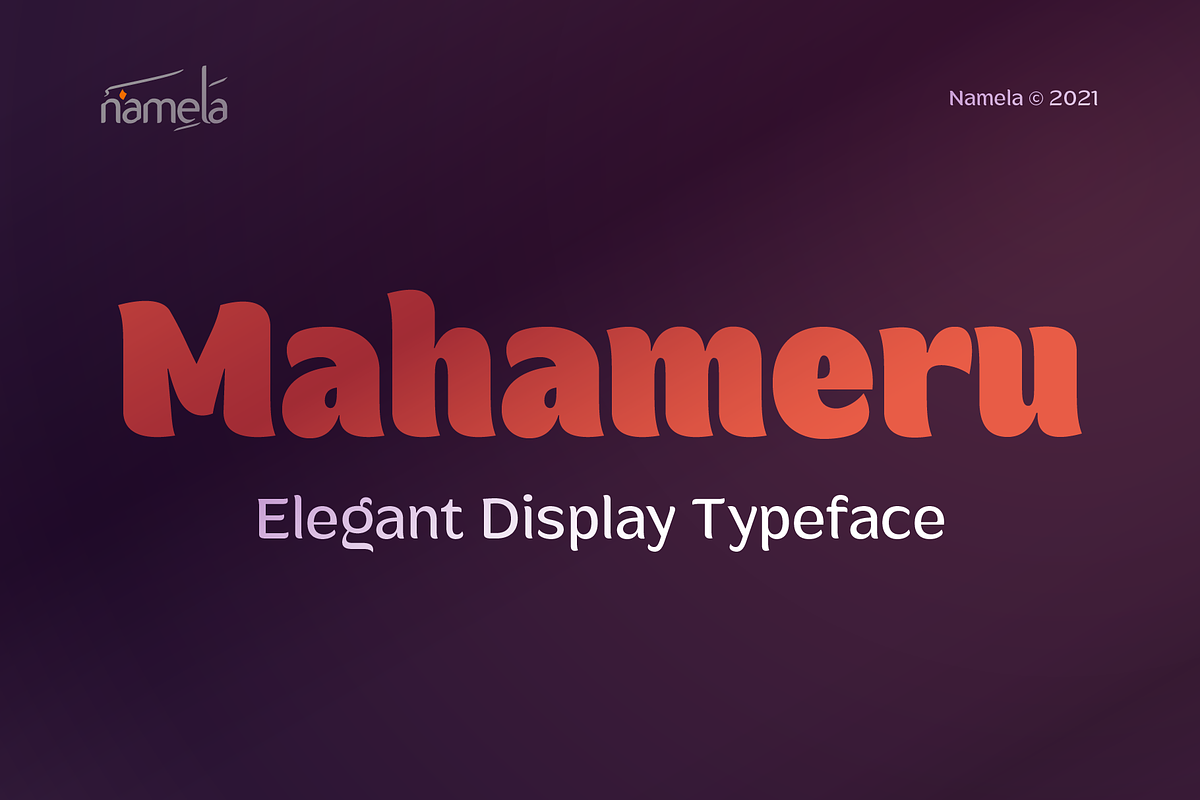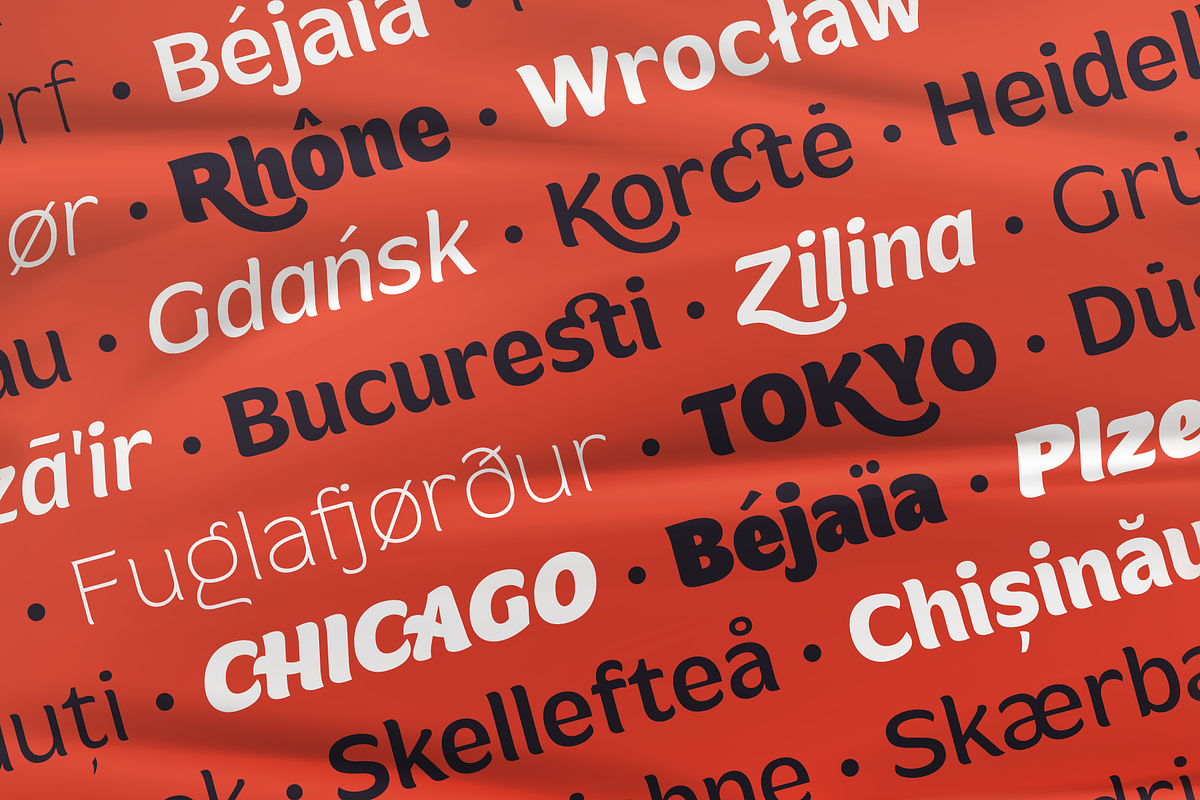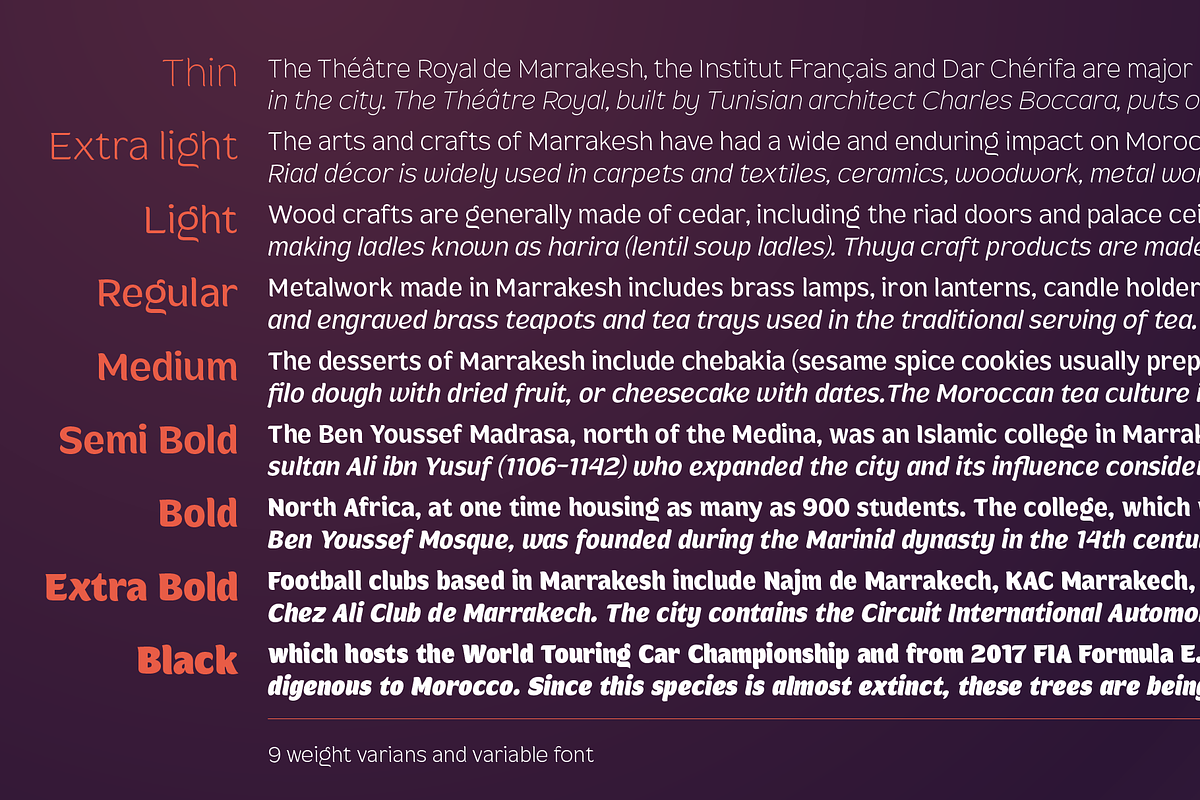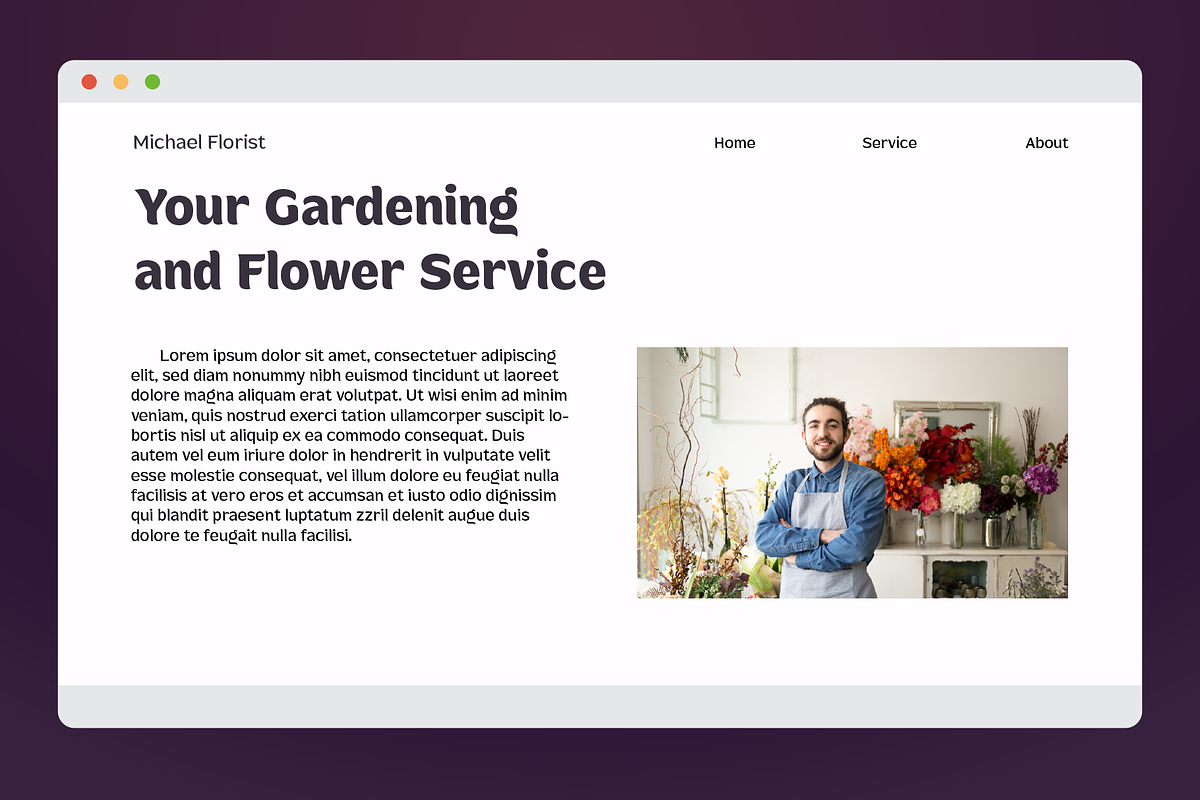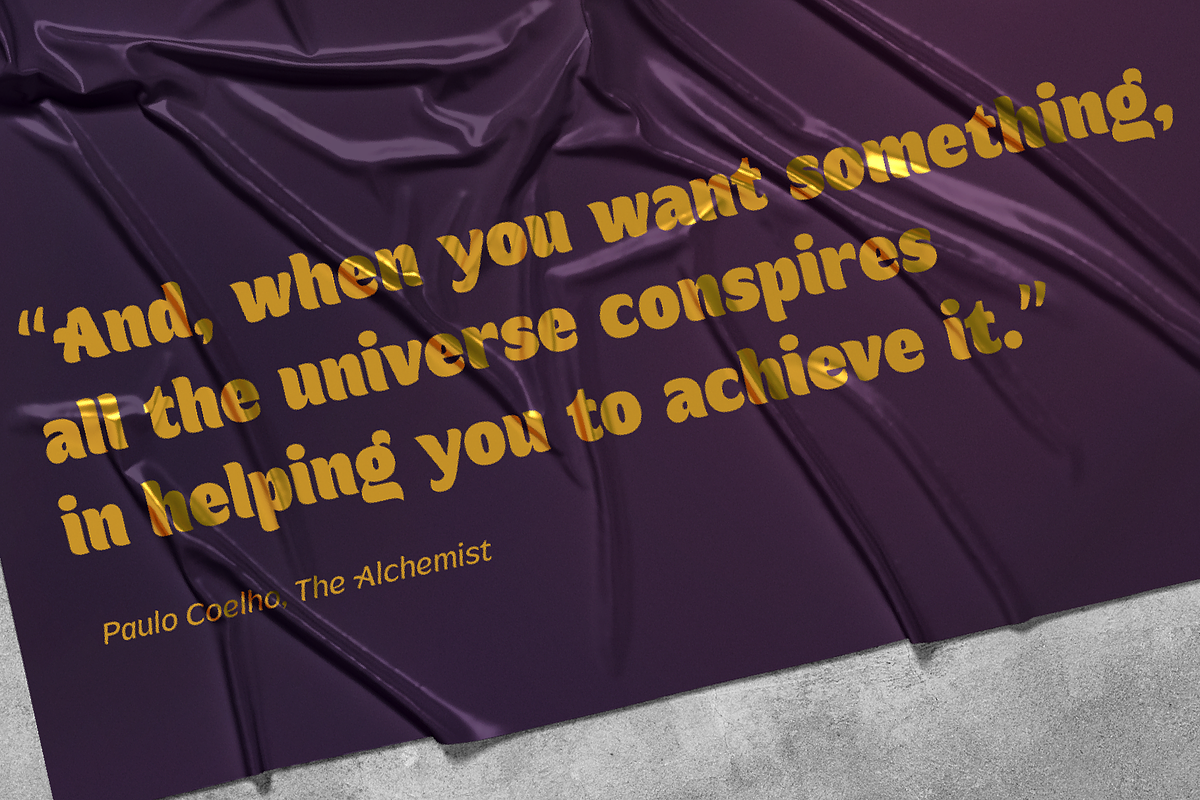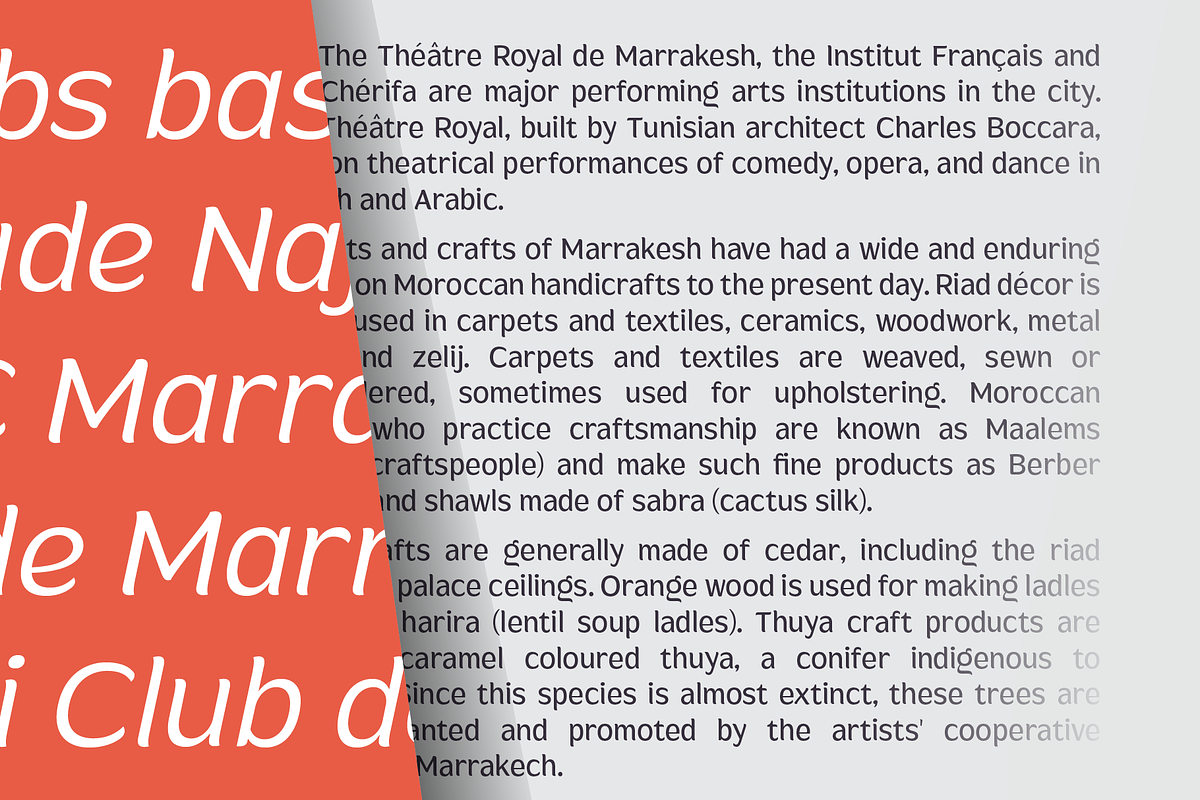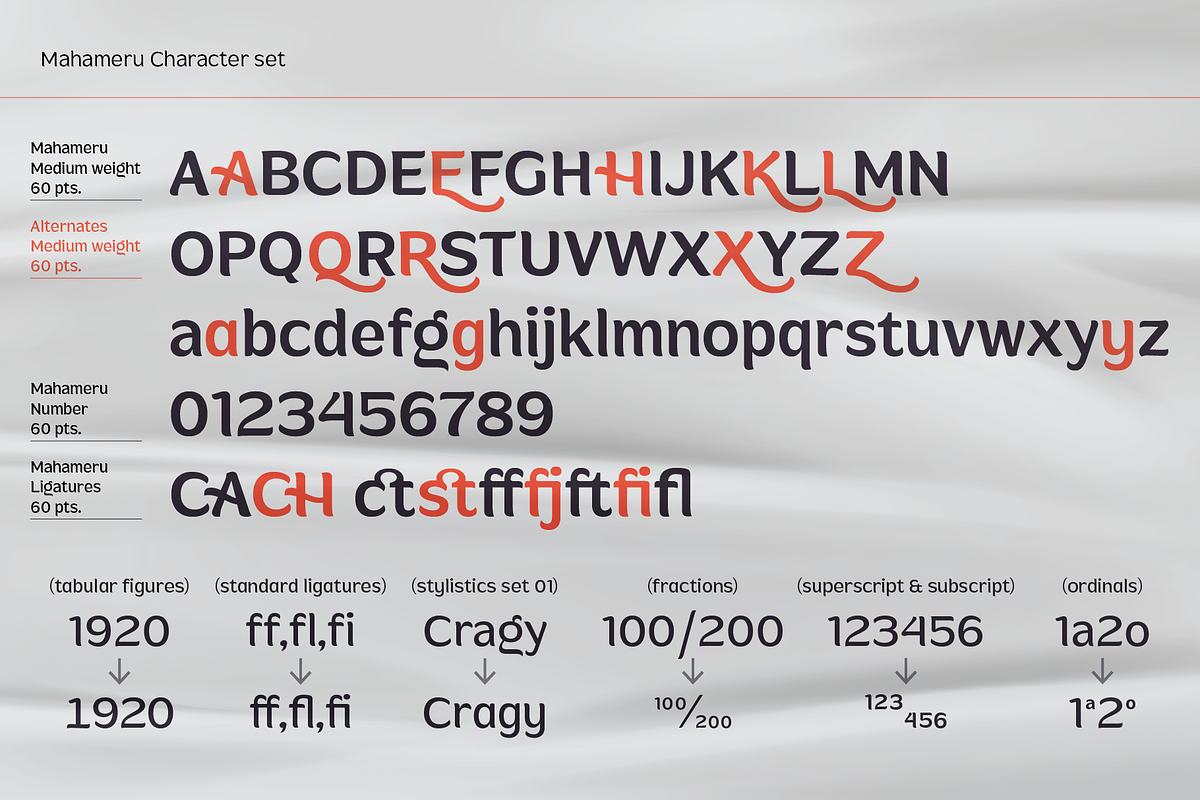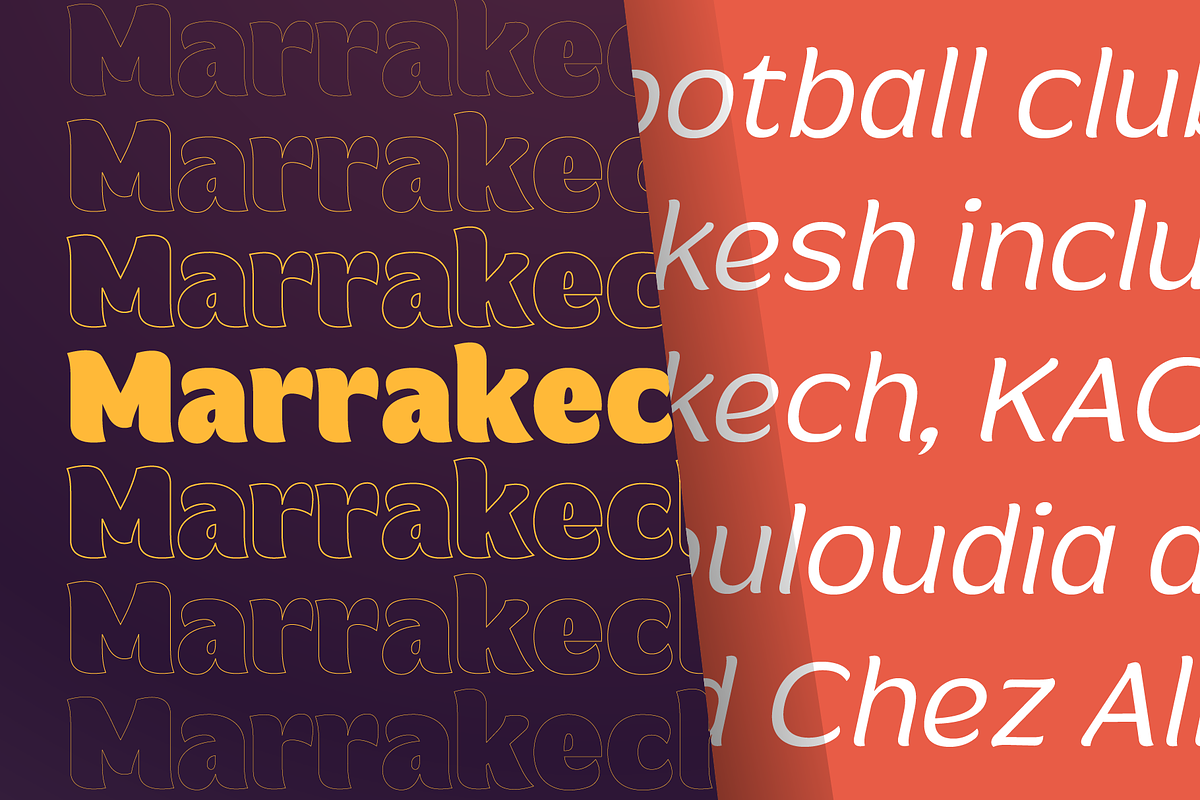
Mahameru Elegant Display Font Bold
Mahameru Elegant Display font embodies a harmonious blend of strength and softness. Evident in its design Featuring terminal points on both straight and curved strokes. Mahameru Font offers a rich palette of typographic choices. Allowing you to tailor your project with precision.
Mahameru Elegant Display font comes with myriad of features. Providing flexibility to find the perfect typographic color for your creative endeavor.